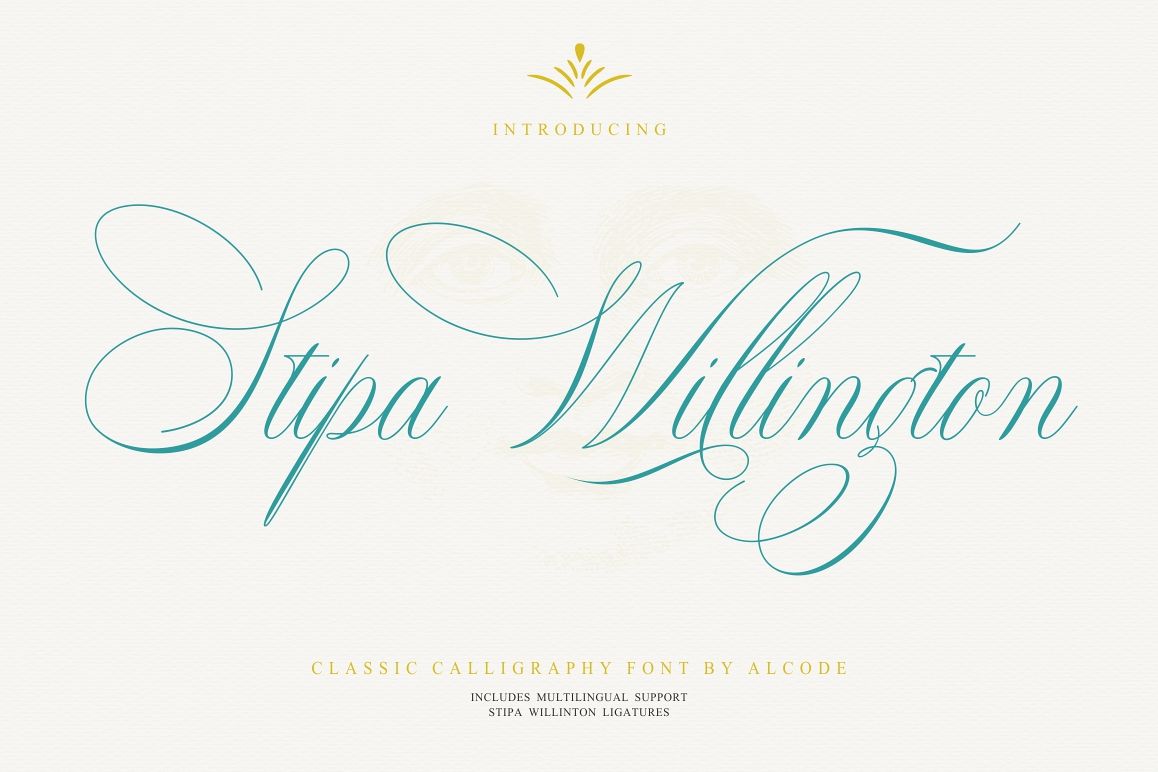
Stipa Willington
Introducing Stipa Willington
Stipa willington is a classic font, I built it with my relaxed hands. designing a classic font but having a modern element in it, which makes it particularly suitable for wedding media, book covers, greeting cards, logos, branding, business cards and certificates, in fact for any design work that requires a clasik, formal or luxury.
Try Stipa willington, enjoy the richness of OpenType features and let her fun and elegant excitement make you happy and enhance your creativity! You can use this font very easily.
Includes multiligual support and ligatures
There are many features in it. Contains the full set of lowercase and capital letters, punctuation, numbers, and multilingual support. This font also includes some ligatures and alternative styles Stylistic Set For those of you who have software that is able to work OpenType (Corel Draw / Photoshop / Illustrator / InDesign).